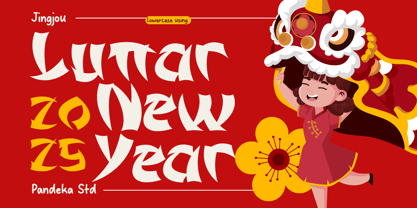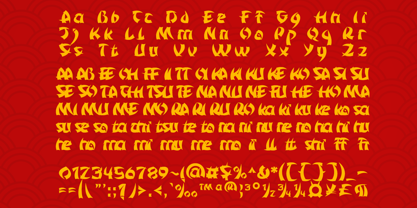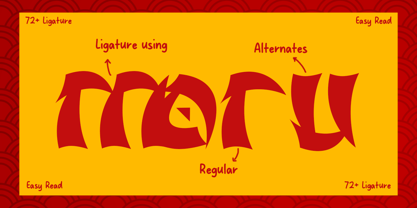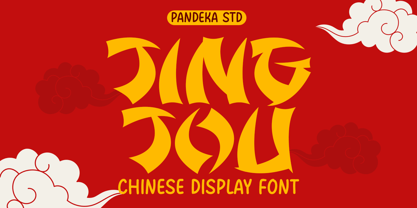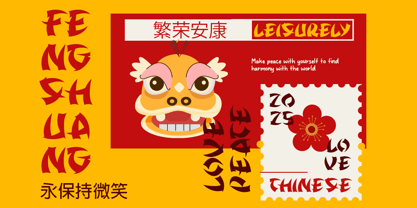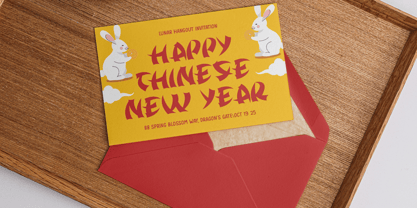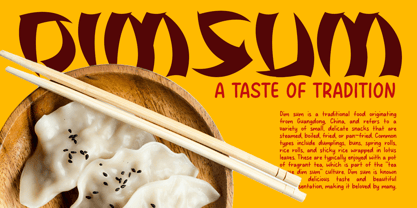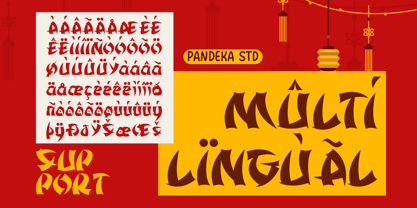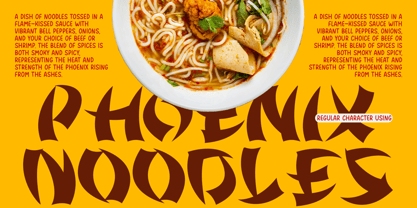
Jingjou
The Jingjou Font Family was designed by Sagara Nararya and published by Pandeka Studio. Jingjou contains 2 styles and family package options. More about this family
Jingjou – A bold faux Japanese font inspired by Katakana shapes, embodying speed, energy, and modern design with its sharp, dynamic cuts. Available in 2 styles (Regular and Outline), Jingjou is perfect for Chinese display typeface, bold typography, and projects that blend traditional design with a futuristic edge.
Ideal for elegant calligraphy, cultural aesthetics, unique lettering, and creative displays, Jingjou adds a striking and versatile touch to online games, movie titles, posters, fast-food menus, magazines, and social media graphics.
• 2 Styles: Regular and Outline
• Full Character Set: uppercase, lowercase, numbers, symbols, punctuation and ligature
• 72+ Ligatures and alternates
Unleash speed, style, and cultural flair with Jingjou! 🚀